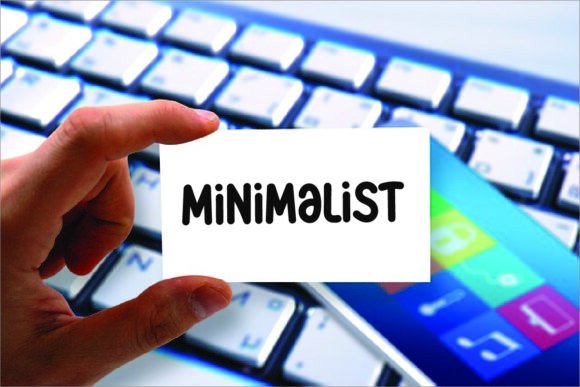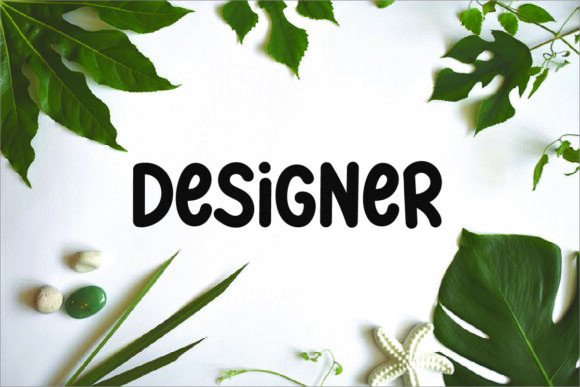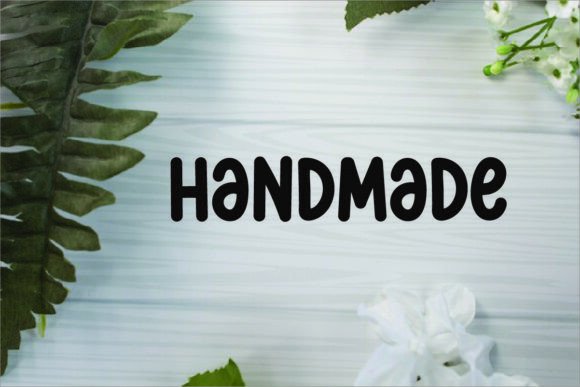
Introduction to Beardson Font
Beardson is a festive typeface perfect for holiday projects.
Whether you’re designing greeting cards, banners, social media graphics, or marketing materials, this font adds a touch of Christmas charm to your text, spreading joy and warmth during the holiday season .
Key Features of Beardson Font
Why Choose Beardson Font?
Beardson Font offers exceptional quality and versatility, making it a valuable addition to your design toolkit. Whether you’re creating for personal projects or commercial use, Beardson Font delivers professional results.